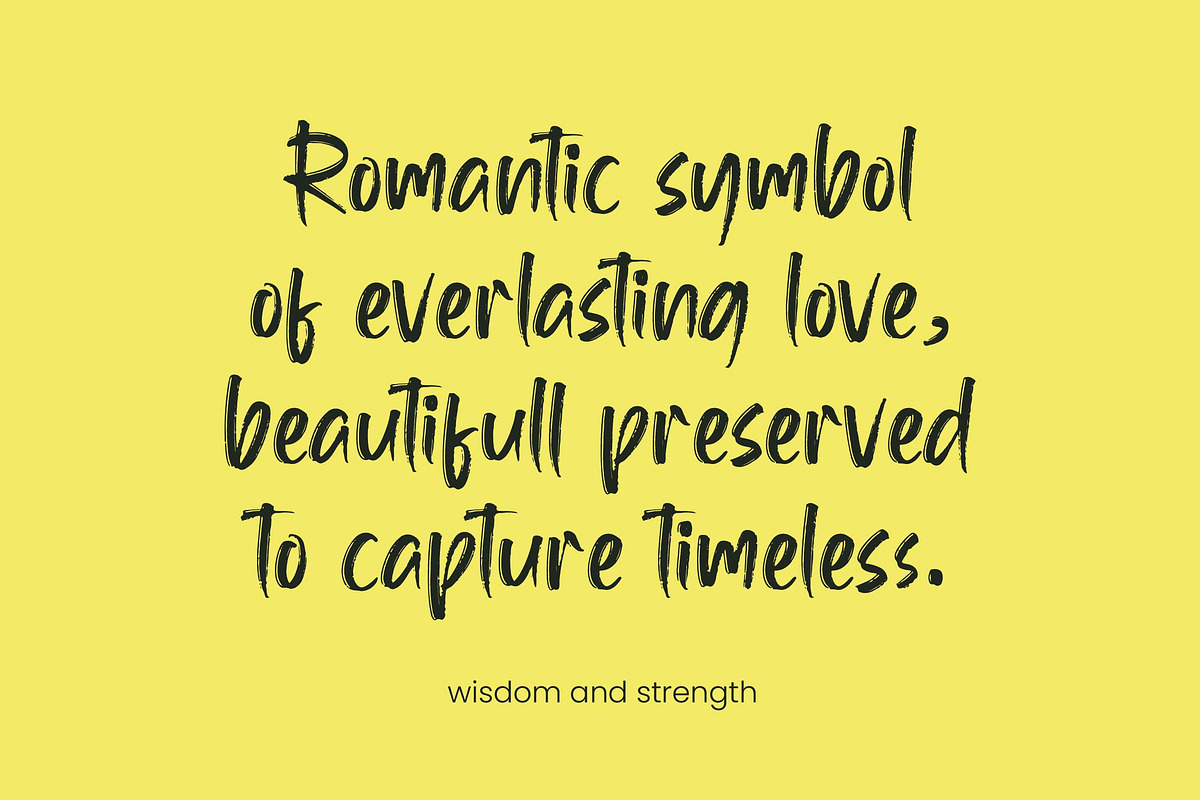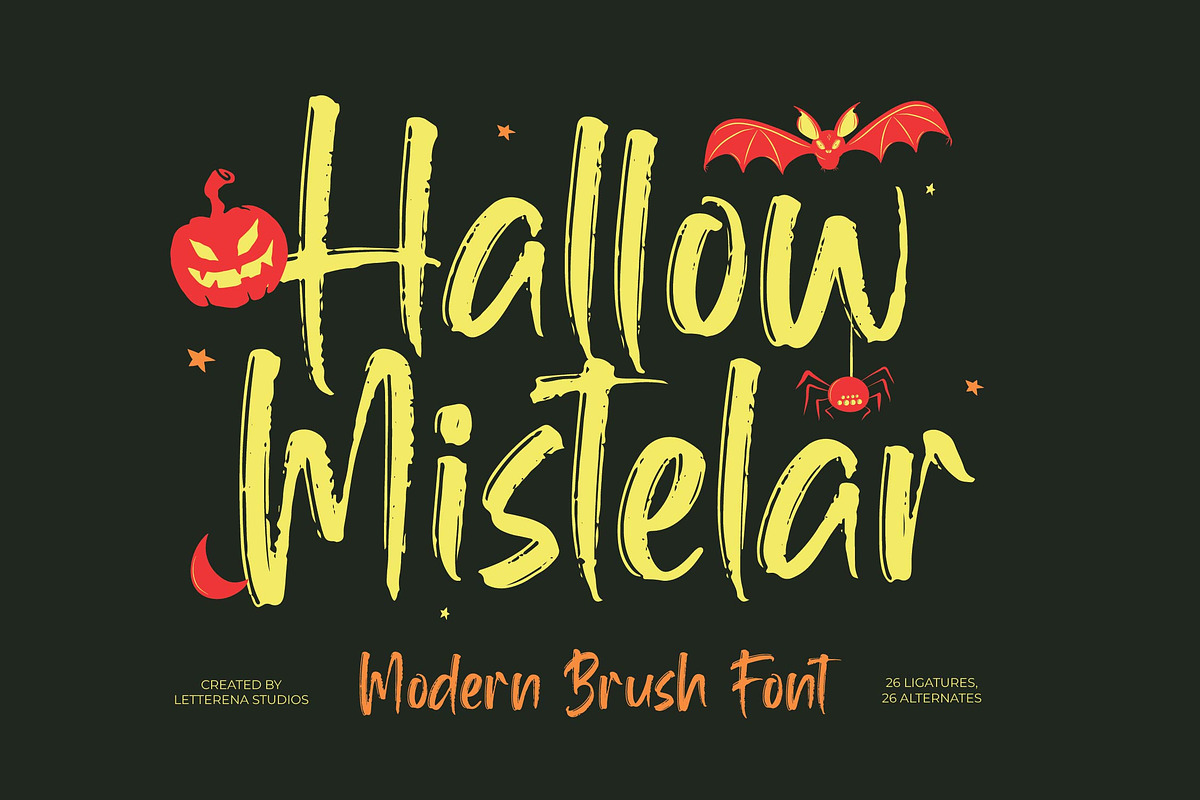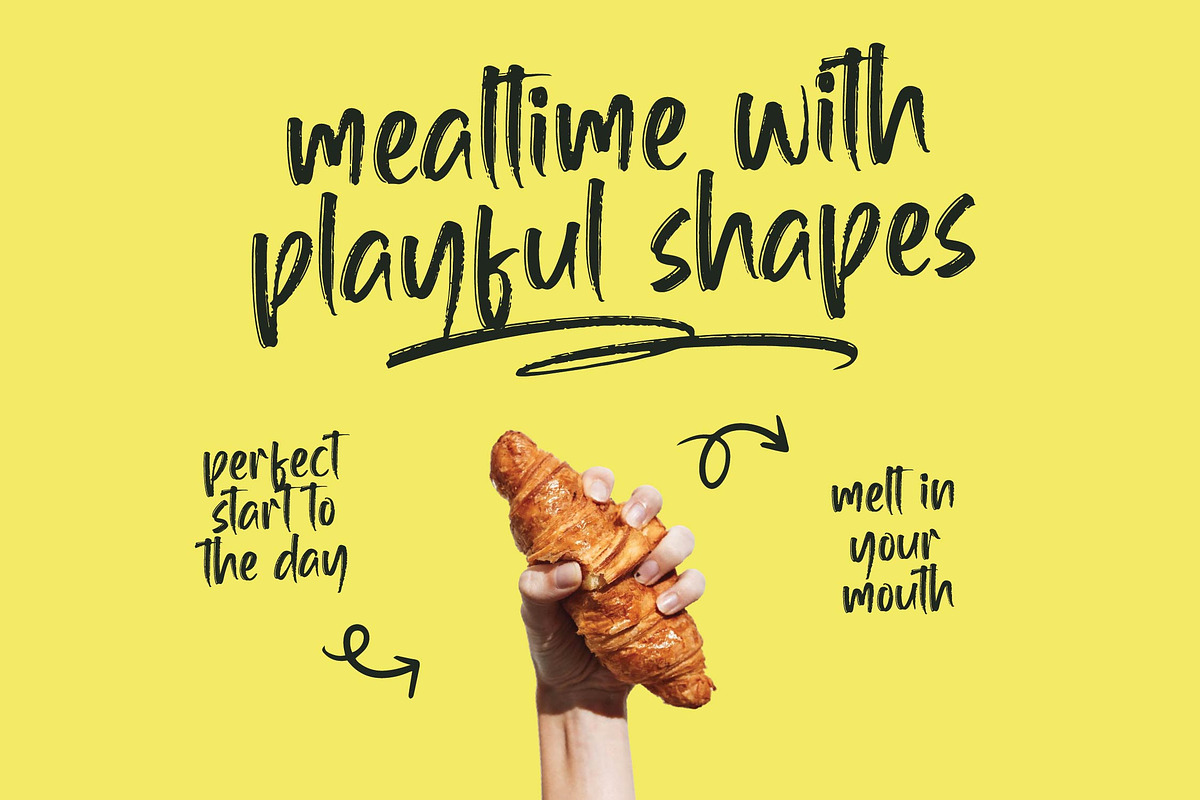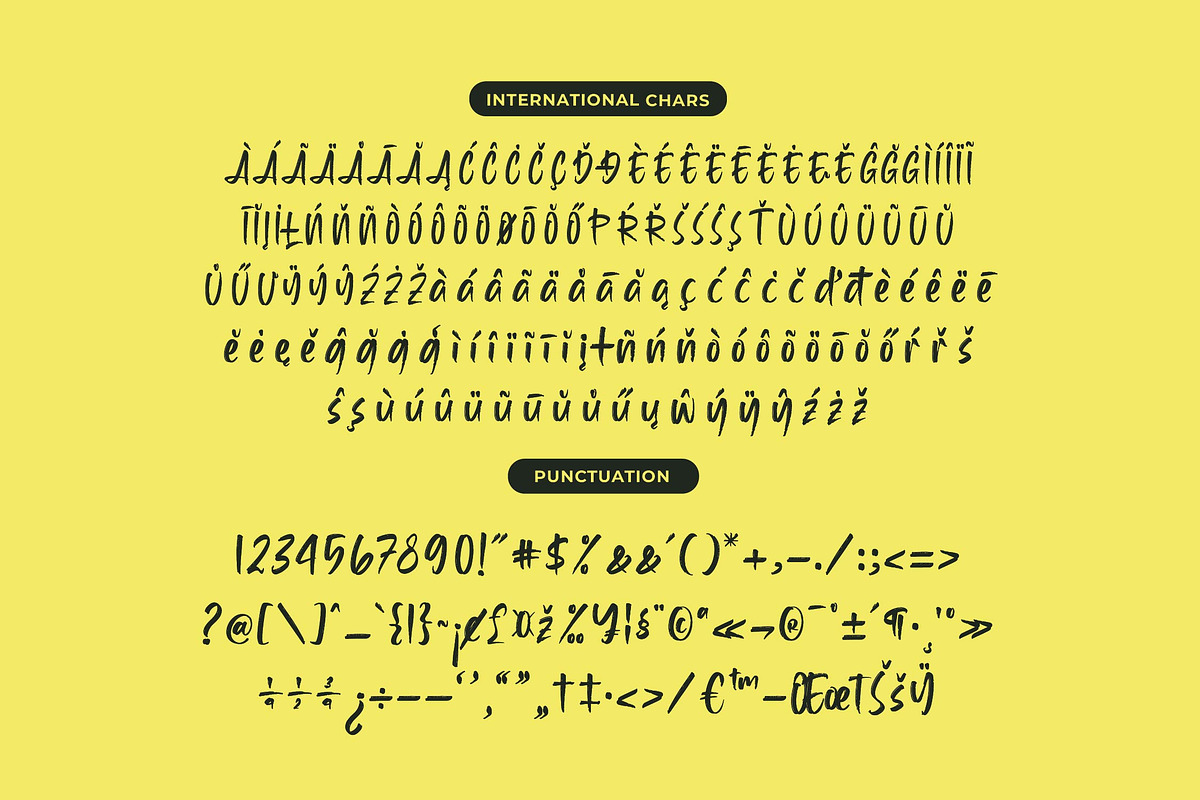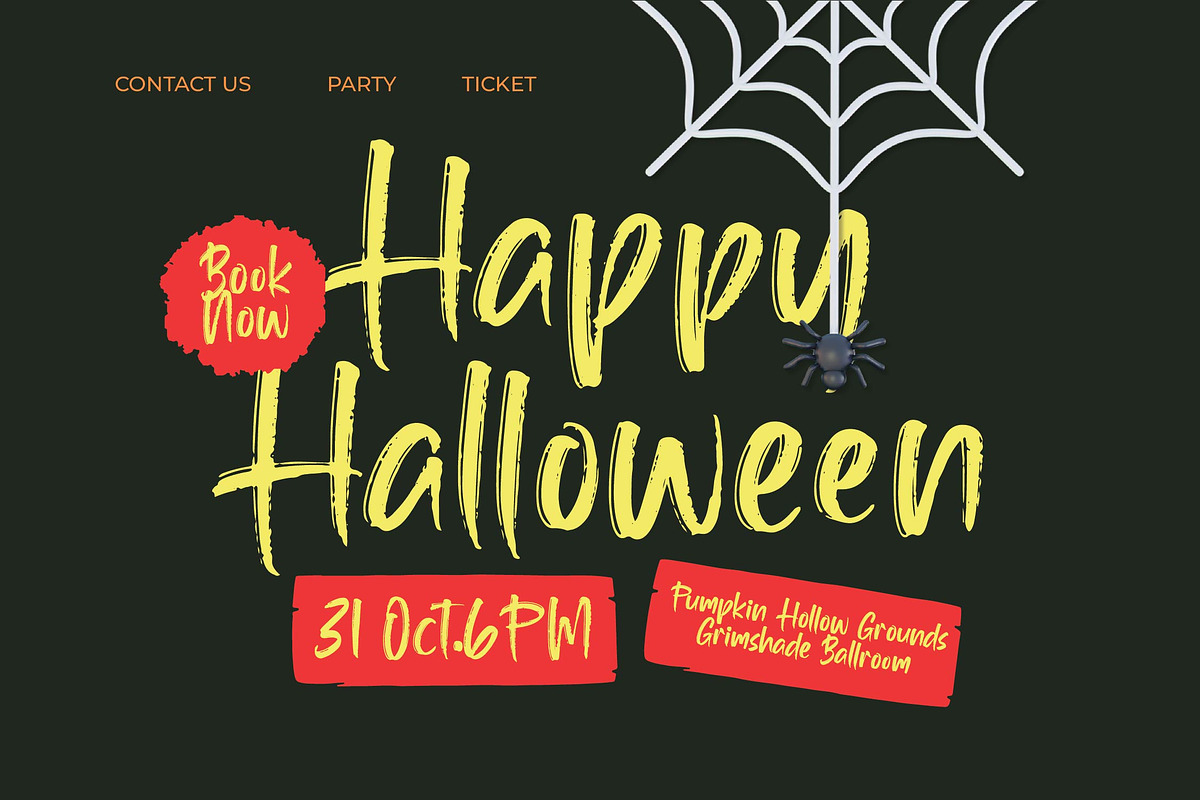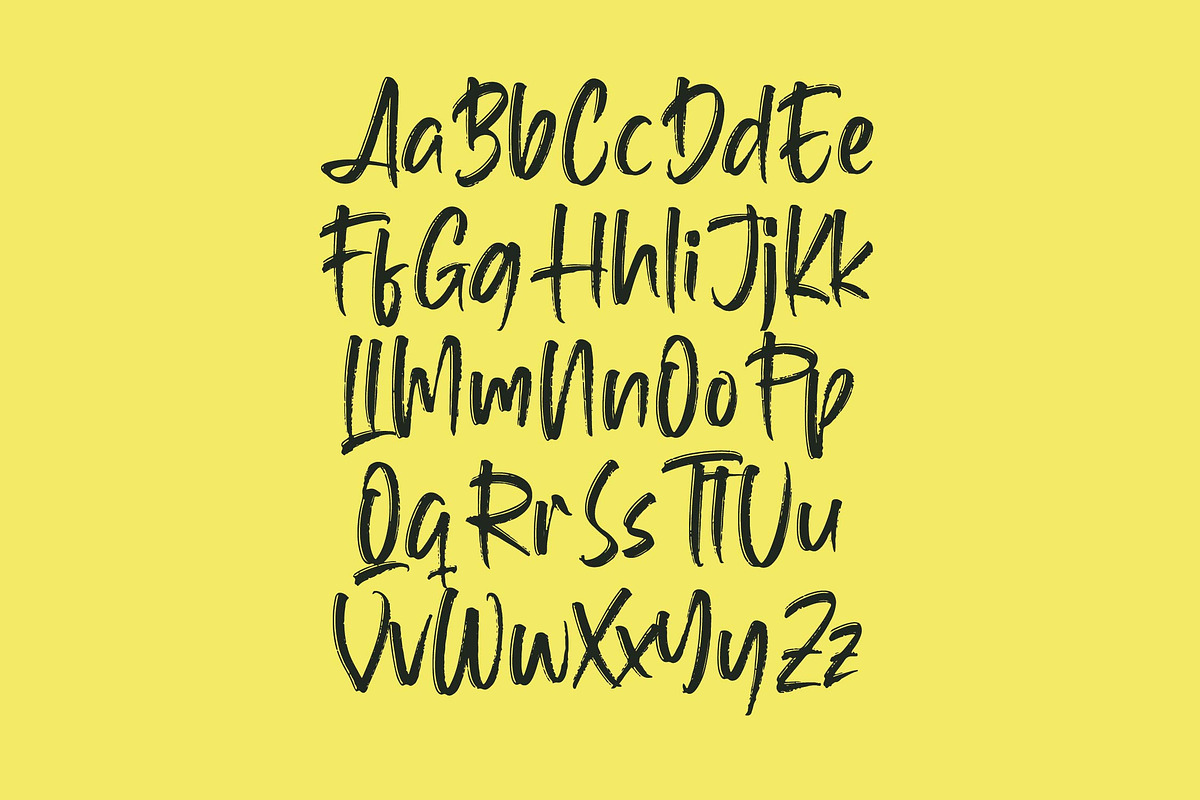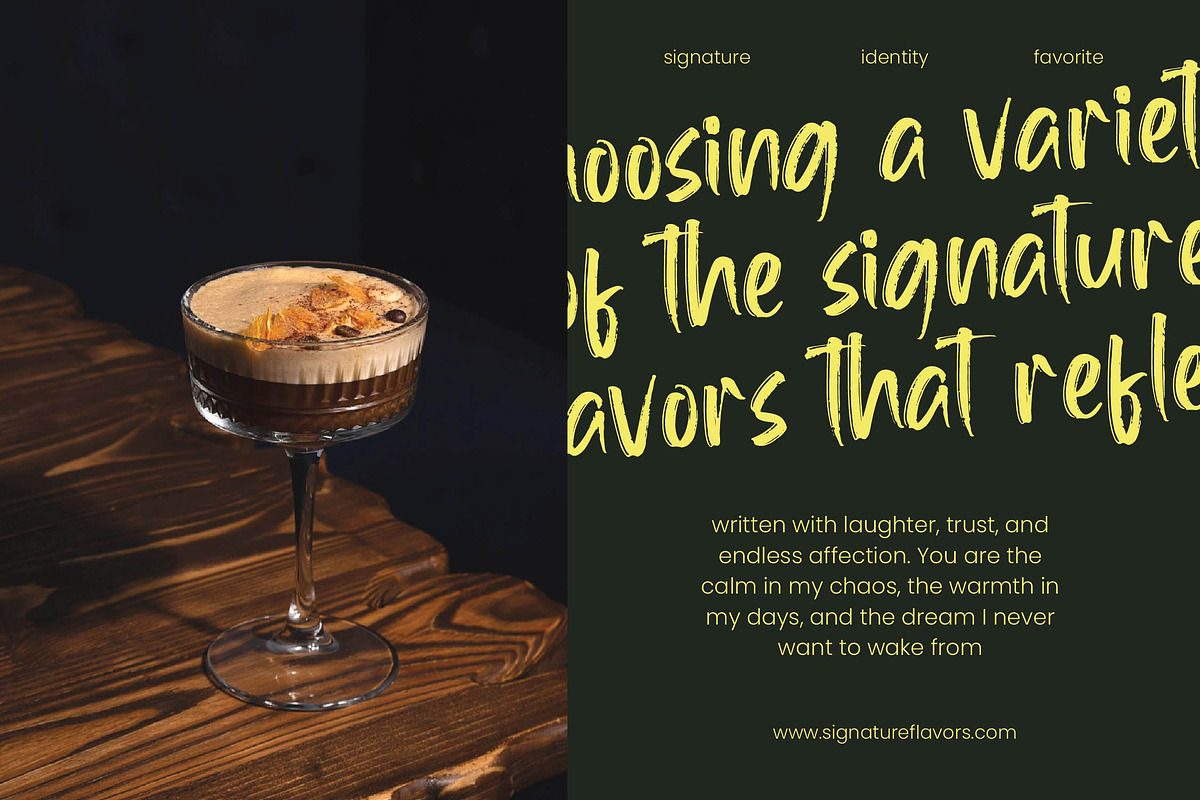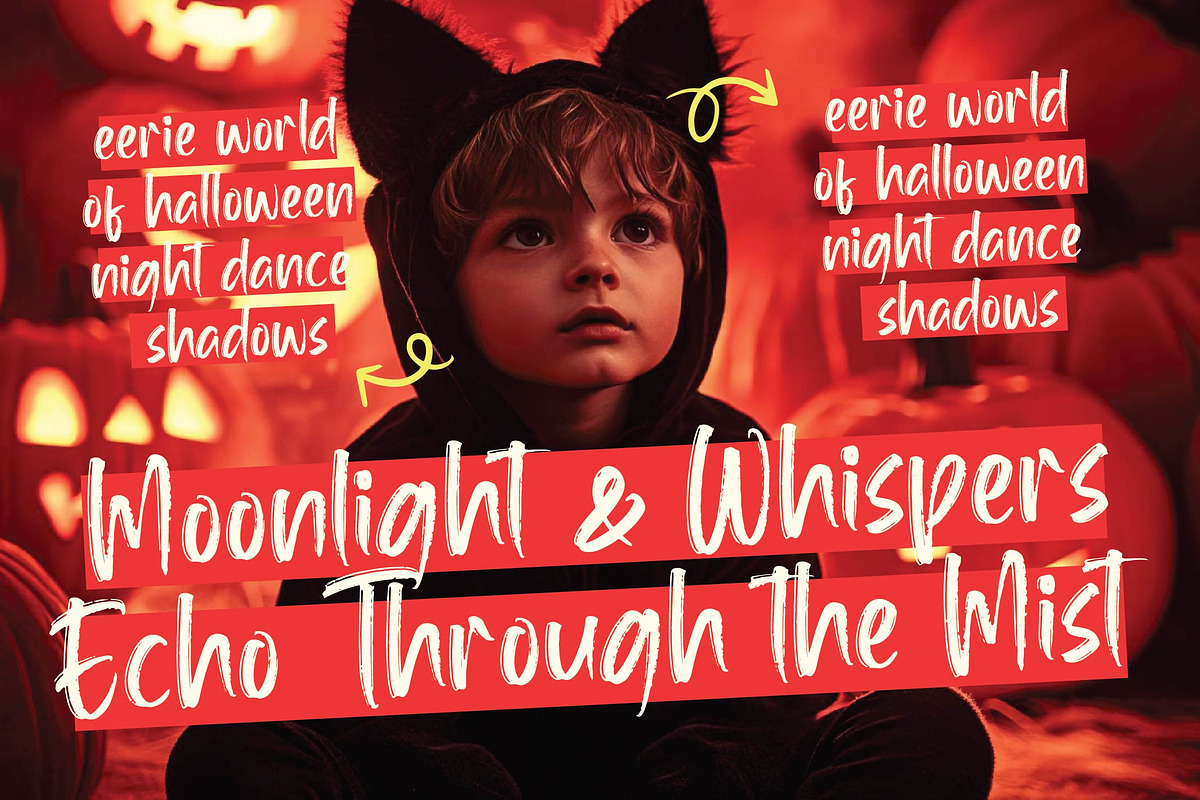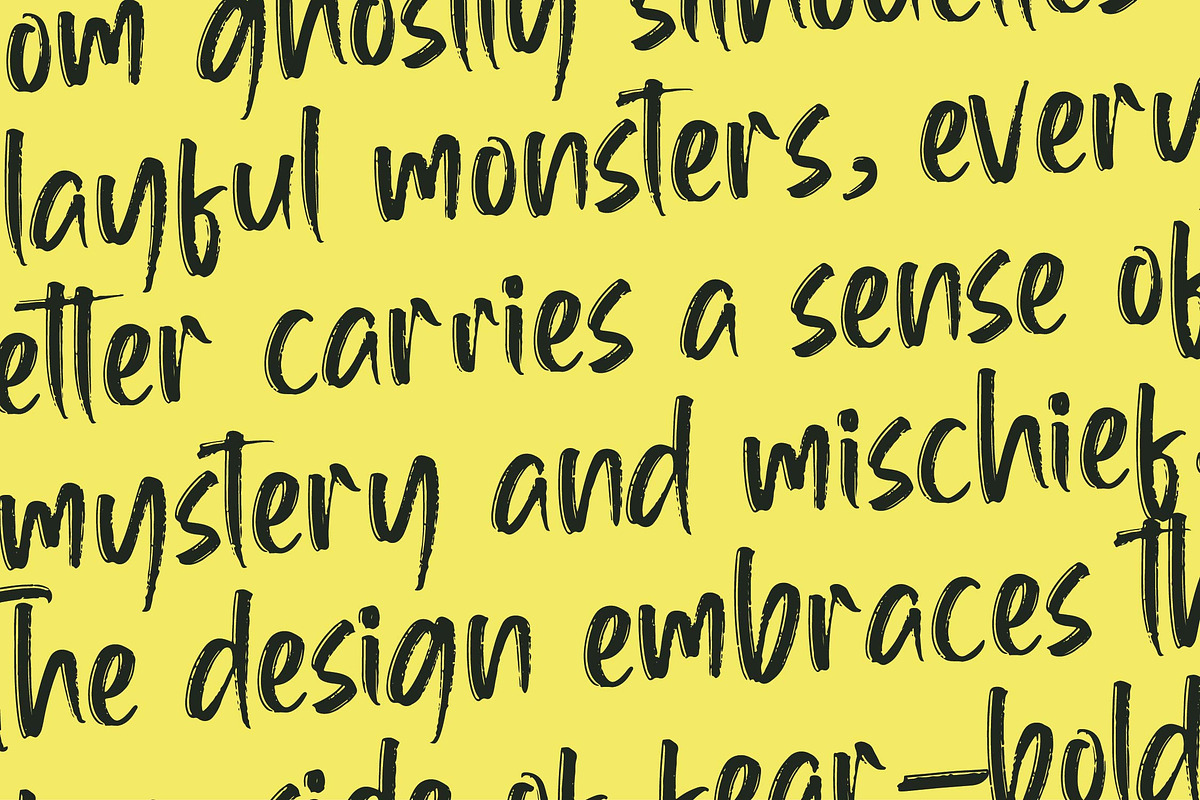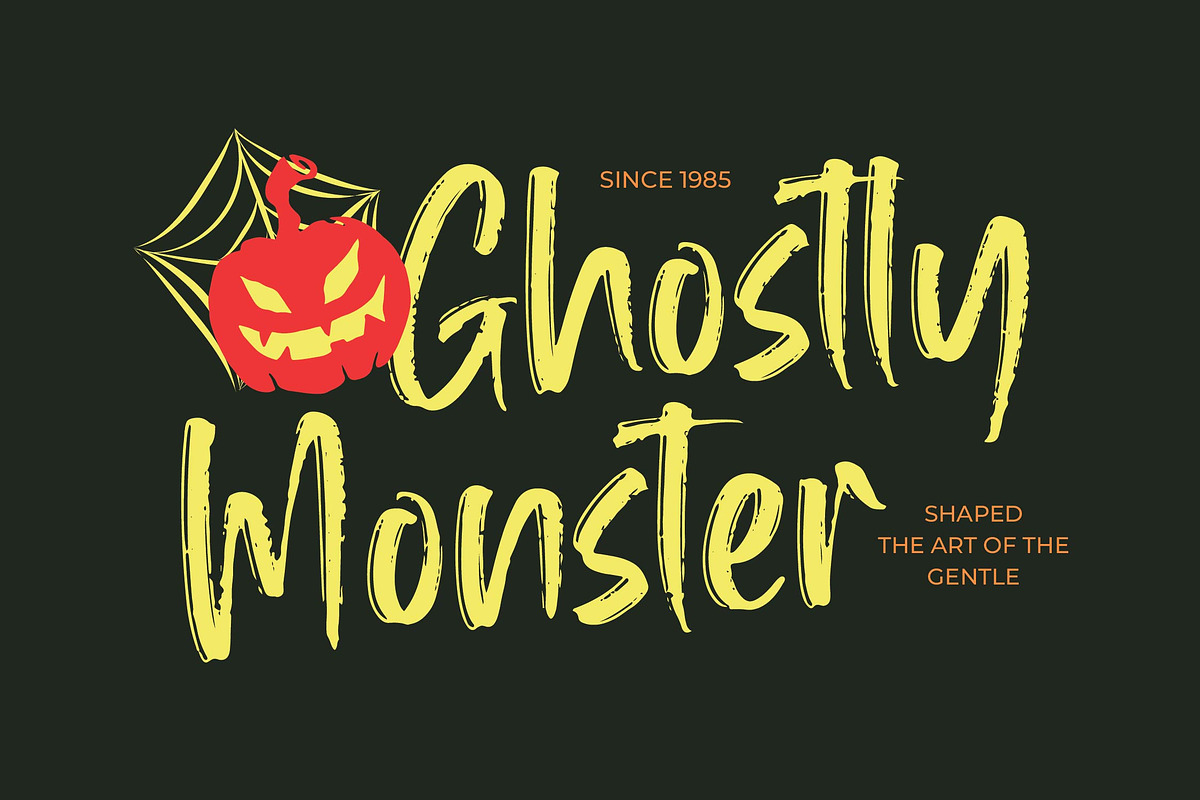
Hallow Mistelar Modern Brush Font
Hallow Mistelar - Modern Brush Font , Hallow Mistelar is a modern brush font with a spooky, energetic, and hand-painted Halloween vibe. Its rough brush strokes, expressive texture, and playful irregular shapes make this typeface perfect for Halloween posters, party invitations, horror-themed merchandise, trick-or-treat packaging, YouTube thumbnails, stickers, and seasonal branding.
With 26 ligatures and 26 alternates, Hallow Mistelar gives you plenty of stylistic freedom to craft bold titles and creepy designs filled with personality. Whether you want a fun scary look or a bold horror brush style, this font brings the perfect Halloween spirit to any project.